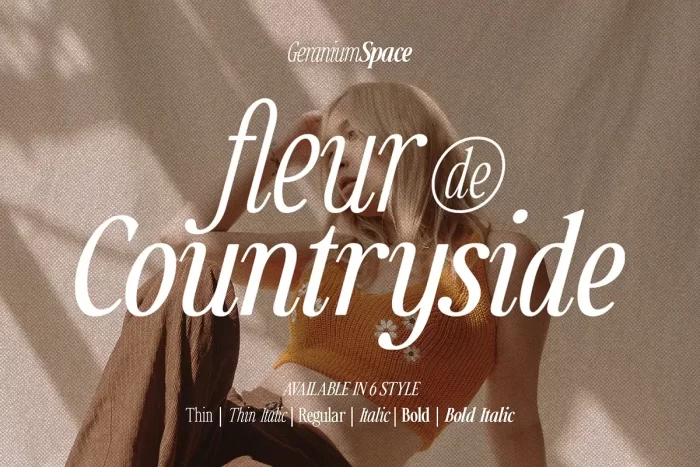
Countryside in a modern serif font. There are 6 types of fonts that you can use to create modern designs, such as a combination of regular and italic styles. It is perfect for Web Design, Branding, Logos, Invitations, Magazines, Posters, and many more.
- Alternates
- Ligatures
- Multilanguage